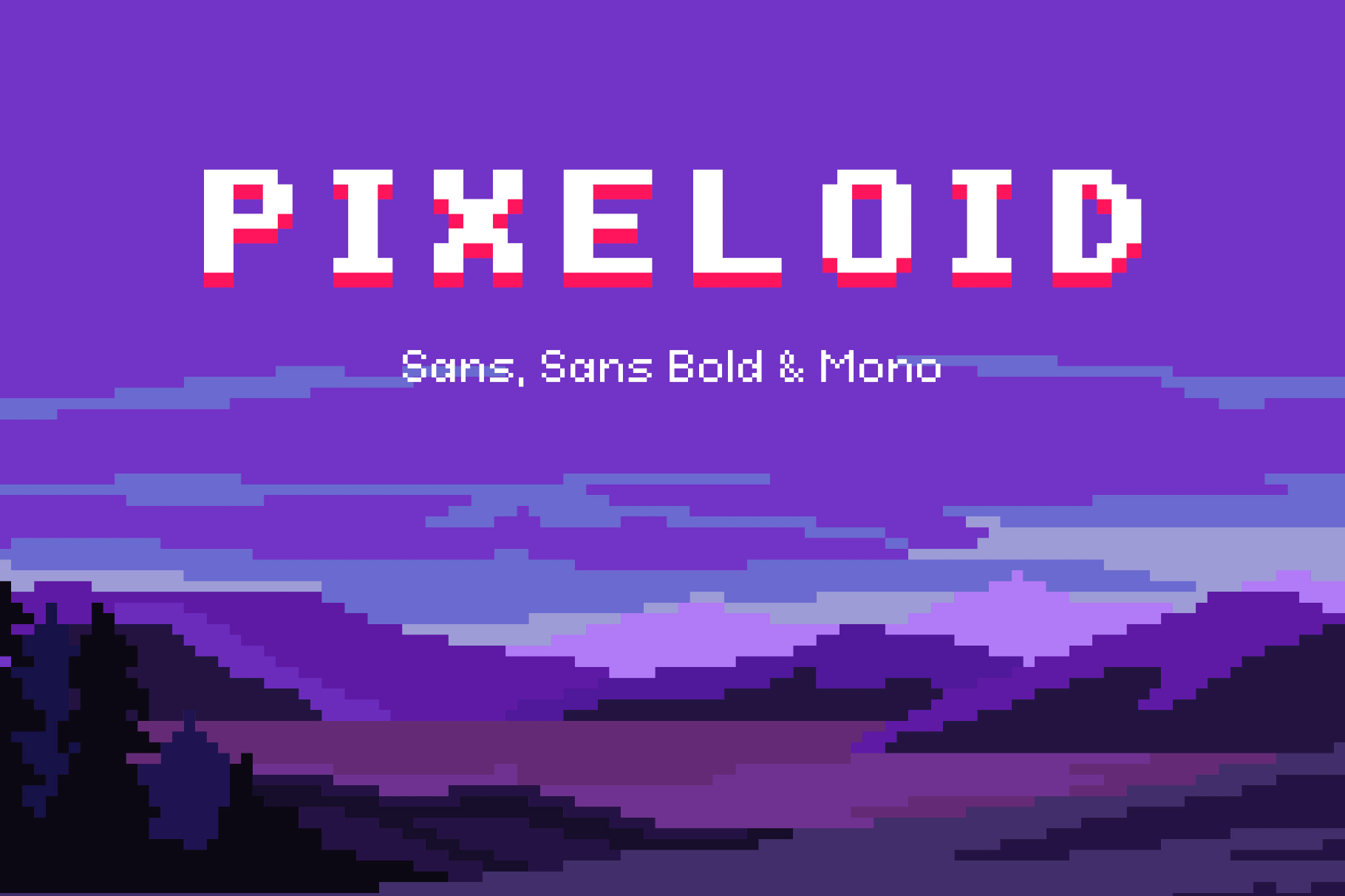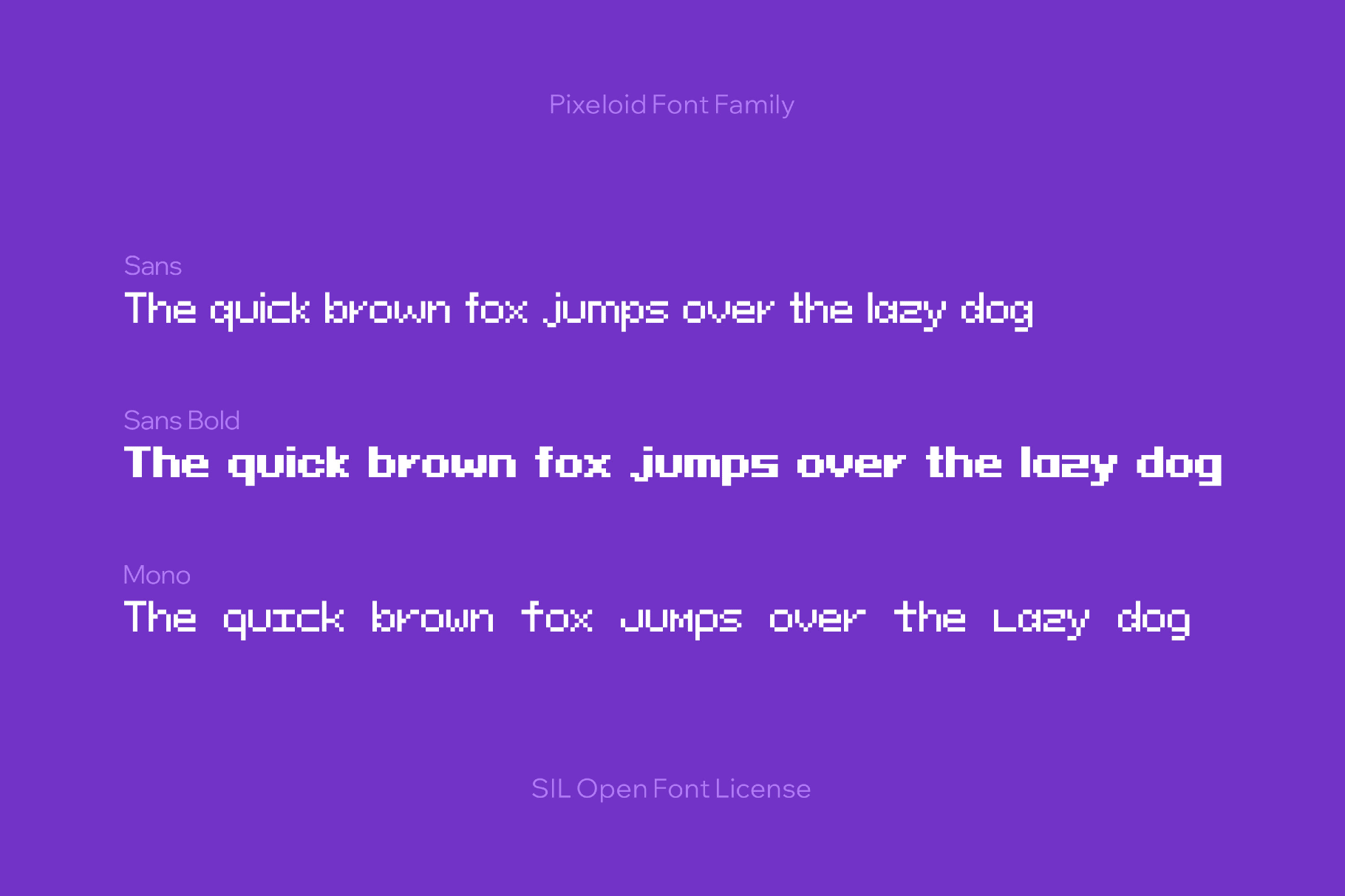
Pixeloid Font Family
Sans-Bold
Sans
Mono
Pixeloid is the clean, confident UI type: crisp geometry, curves, and straight diagonals. With Mono, Sans, and Sans Bold styles, it gives you a complete hierarchy out of the box — body copy, labels, and loud headlines can all stay in the same pixel world without fighting each other.
Pixeloid suits game menus, dialogue boxes, HUD systems, subtitles, app mockups, dashboards, and editorial layouts. It also works well for streaming overlays, event posters, magazines, YouTube and Twitch thumbnails, and brand identities tied to gaming, tech culture, and pixel-art aesthetics.
- Three styles: Sans, Sans Bold, and Mono.
- Uppercase and lowercase letters, numbers, punctuation, symbols, international characters, extended mathematical symbols, and metrics.
- Multilingual support across extended Latin, extended Cyrillic, and Greek scripts.